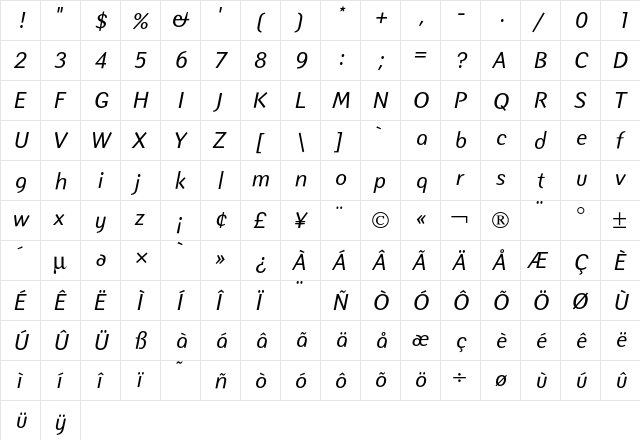
NatWest TextItalic Font Preview
NatWest TextItalic
Design Context for NatWest Typeface
NatWest is a composed and adaptable typeface that performs quietly and consistently across a wide range of design contexts. The slanted form adds forward momentum and visual energy.
Pro Tip: Use NatWest for emphasis, pull quotes, and subheadings where its slanted energy can add rhythm to the layout.